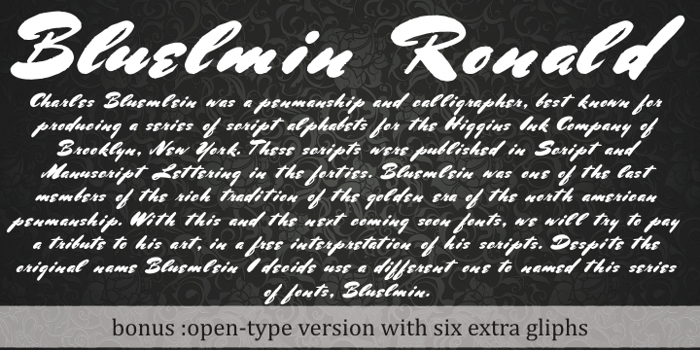
Bluelmin Ronald Font
ABOUT THIS FONT - BLUELMIN RONALD
Charles Bluemlein was a penmanship and calligrapher, best known for producing a series of script alphabets for the Higgins Ink Company of Brooklyn, New York. These scripts were published in Script and
Manuscript Lettering in the forties. Bluemlein was one of the last members of the rich tradition of the golden era of the north-american penmanship. With this and the next coming soon fonts, we will try to pay
a tribute to his art, in a free interpretation of his scripts. Despite the original name Bluemlein I decide use a different one to named this series of fonts, Bluelmin. THE OPEN TYPE VERSION HAS A BONUS :
six extra gliphs acessible using the gliph pallet or the contextual alternate open type feature (plus a "G" gliph available using the Special Set 01 feature)